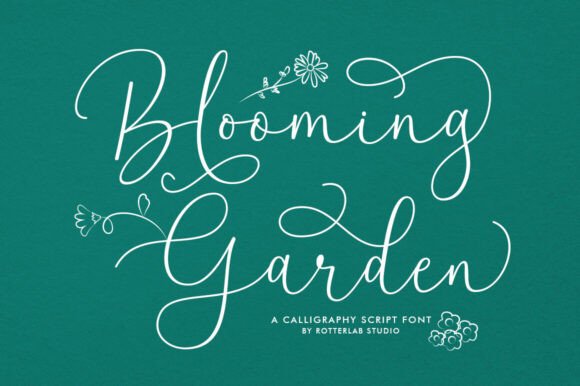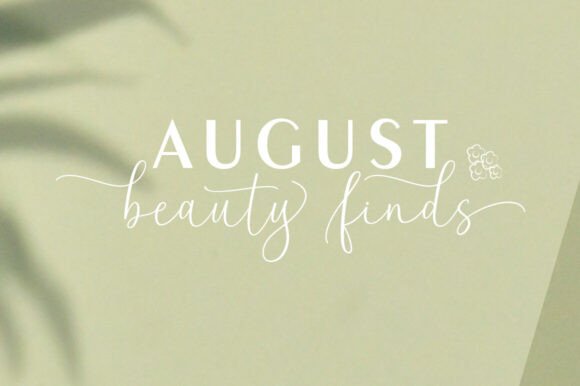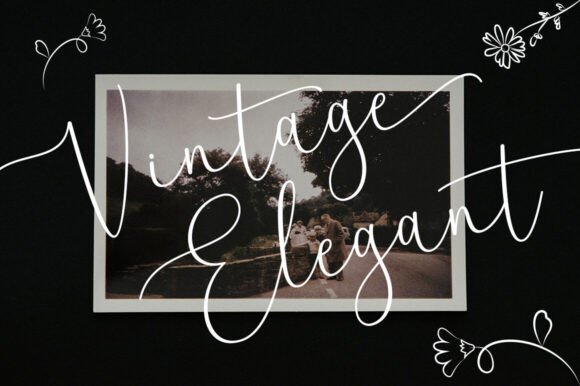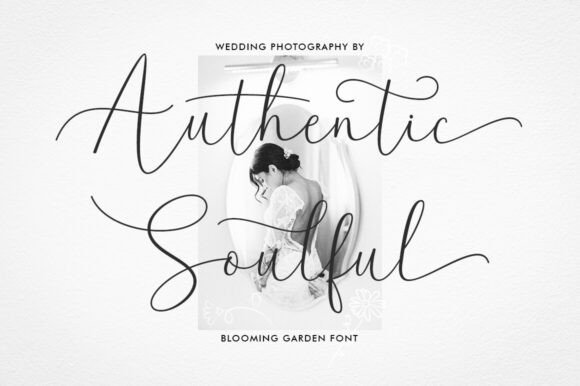
Blooming Garden Font
About the Blooming Garden Font
We are excited to introduce Blooming Garden Font, a must-have typeface for any serious designer. Blooming Garden is an elegant calligraphy font with smooth, flowing lines and soft curves, crafted to bring a sense of luxury and refinement to any design. Its combination of timeless elegance and contemporary style makes it the perfect choice for branding, stylish wedding invitations, and premium print materials. Whether you’re creating a logo, designing an invitation, or working on upscale promotional materials, Blooming Garden adds a touch of sophistication and beauty to your project.
Blooming Garden excels in applications requiring a touch of refined elegance, such as logos, wedding invitations, and short, impactful headlines. It’s ideal for branding projects aiming for a sophisticated and luxurious feel, or for packaging that needs to communicate premium quality. However, its delicate nature makes it unsuitable for body text or extended reading, and its elegance might clash with more playful or minimalist designs.
For optimal visual harmony, pair Blooming Garden with a clean sans-serif font like Lato or Montserrat for body text and supporting elements. A geometric sans-serif would create a modern contrast. Alternatively, a classic serif such as Garamond or Playfair Display could amplify its elegant character. Avoid pairing it with overly playful or informal fonts.
The font projects a sophisticated and graceful personality, ideal for brands targeting a discerning clientele. Its elegant curves convey a sense of luxury and timelessness, suitable for businesses in the fashion, beauty, or high-end hospitality industries.
Blooming Garden Font Usage Examples